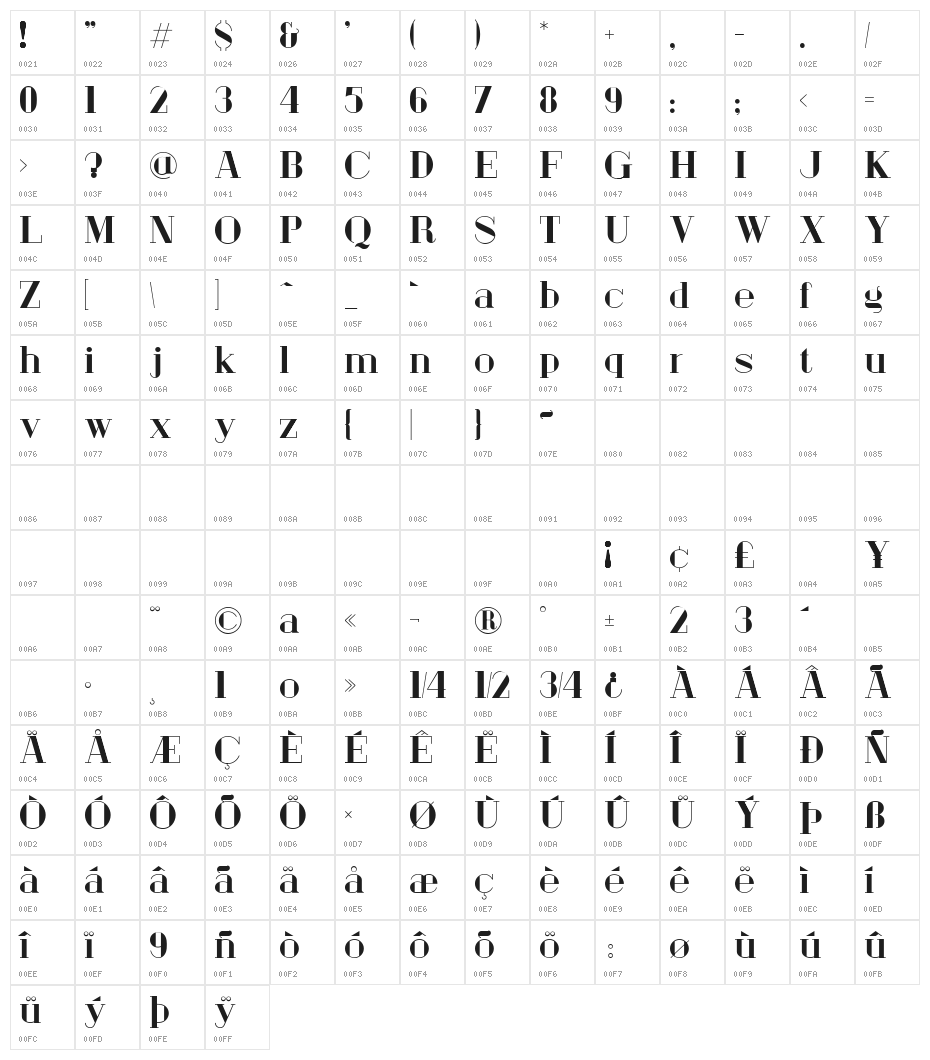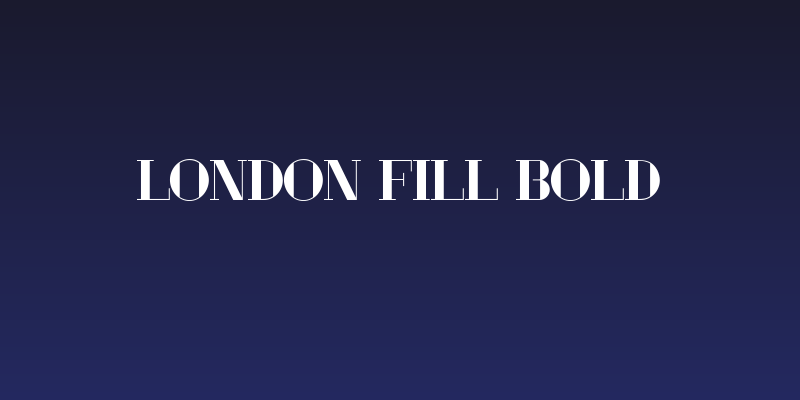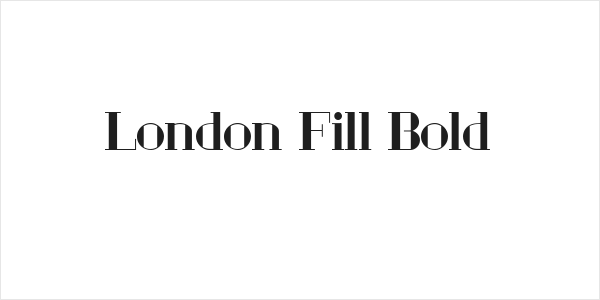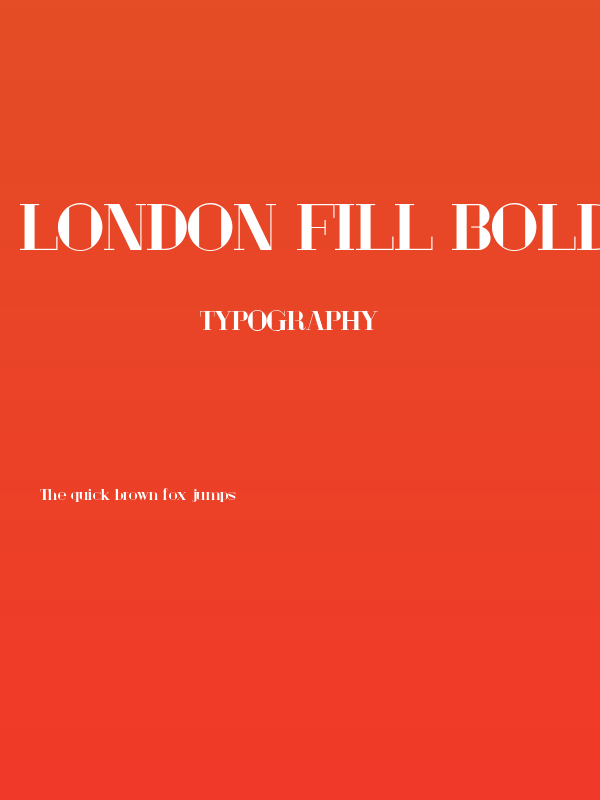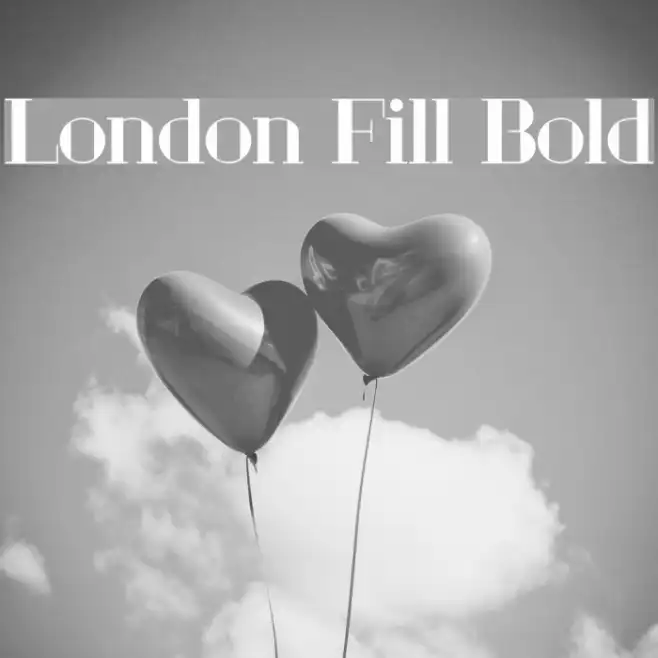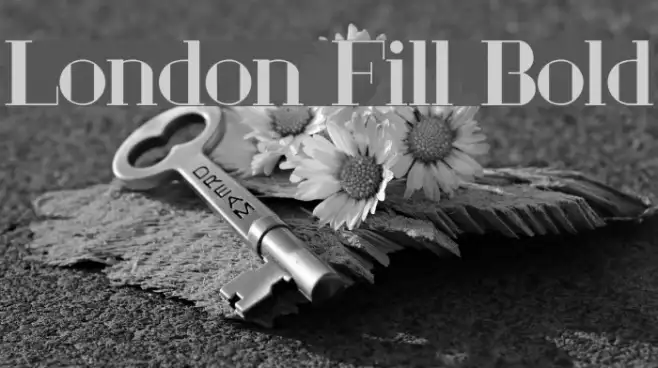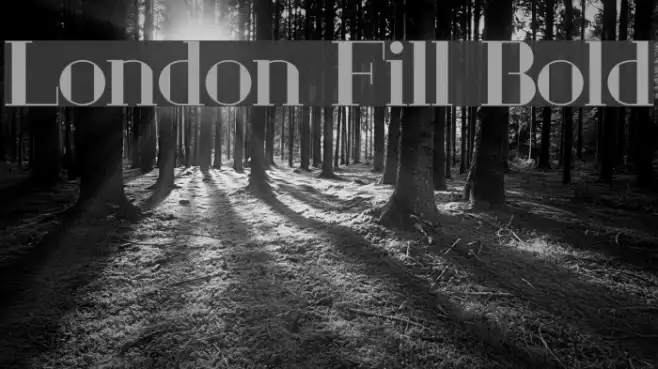
London Fill Bold Font
London Fill Bold Description
This font features a bold and striking design with high contrast between thick and thin strokes, giving it a dramatic and elegant appearance. The uppercase letters are tall and commanding, while the lowercase letters maintain a consistent style with a modern twist. The numerals are equally bold, ensuring they stand out in any context. Special characters are designed with the same attention to detail, making them suitable for a variety of uses. The overall design is both sophisticated and versatile, making it ideal for projects that require a strong visual impact.
| Proposed Projects | Ideal for branding, headlines, posters, and editorial design where a strong visual presence is required. |